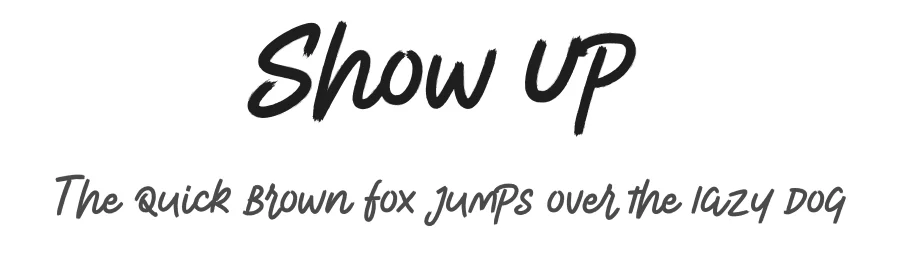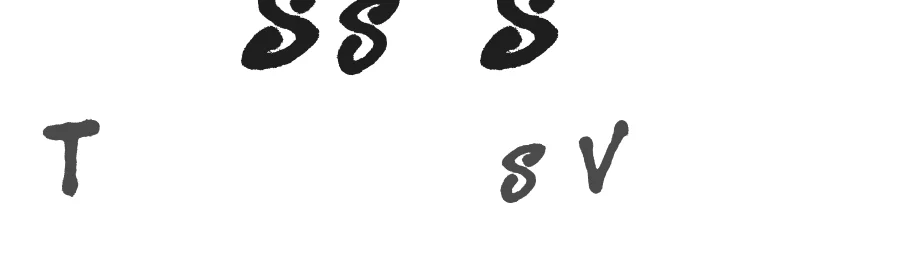
About Heavier Font
Heavier ships with 2 OpenType features you can switch on in apps that support them (Illustrator, InDesign, Affinity, Figma, CSS font-feature-settings).
Heavier Font is a script font that shines as a display or heading face. Pair it with a clean sans-serif or serif font for body text β the contrast creates a clear hierarchy while the two styles stay balanced and easy to read.